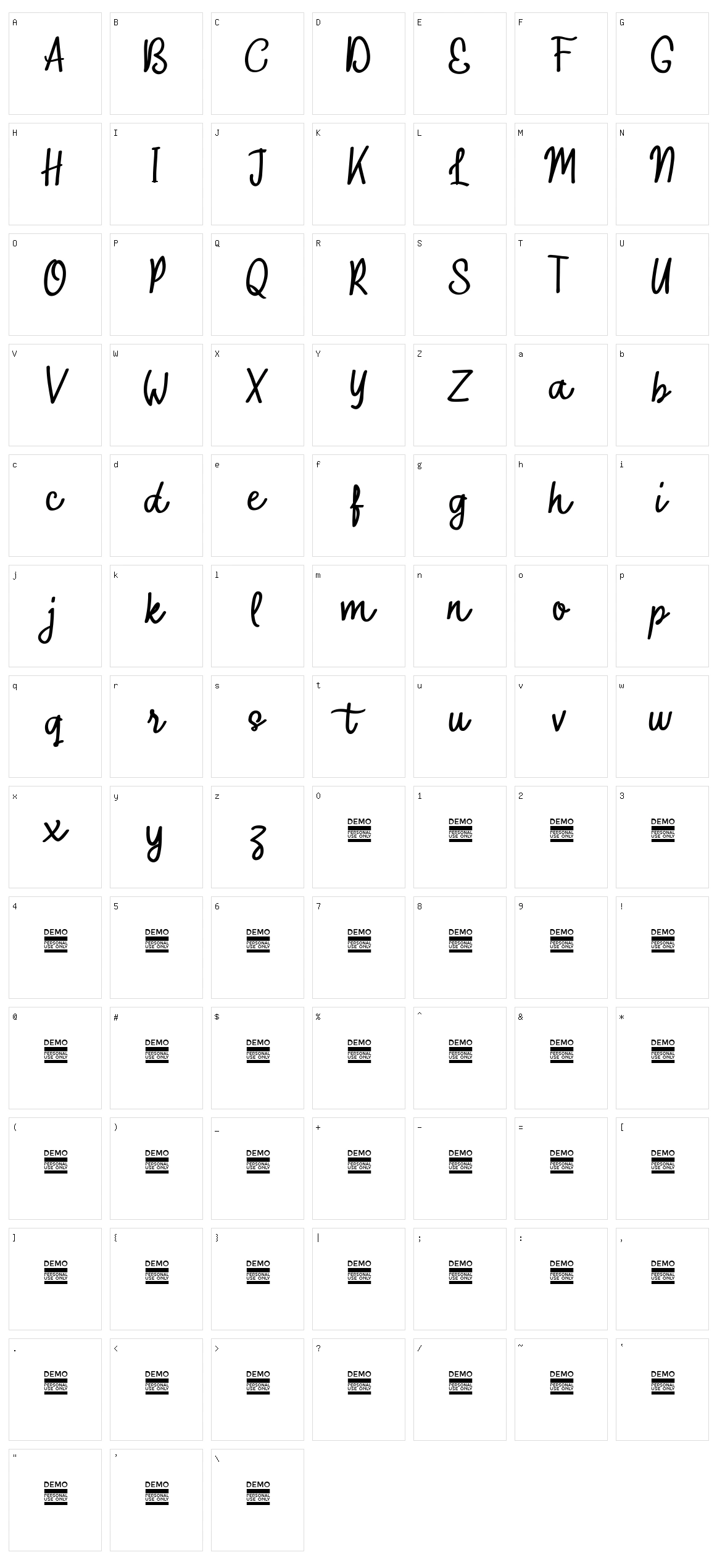
The free font Outerlord is carefully designed by Typia Nesia, showcasing a thoughtful balance of creativity and usability and falls under the Script font style. When you download the ZIP file, it contains only 19.08 KB of font files, making it lightweight and quick to download. Please review the license details below to understand permitted usage and distribution rights. If license information is not available, we recommend using this font for personal projects only or contacting the author directly for commercial usage permissions.